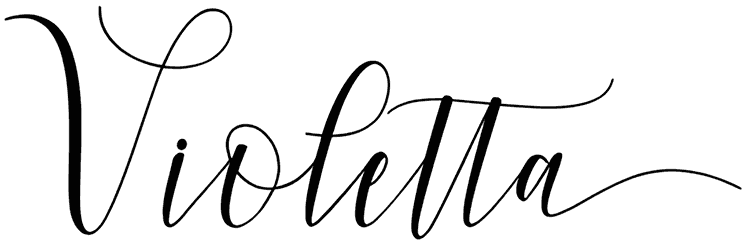
Violetta Script Font
Violetta is a script font with fluent and delicate letters that can make any writing look natural and professional. This spring font is a luxury choice for stylish postcards, wedding invitations, and print and digital designs. The smooth movement of the pen along with soft and uniform curves has made this font able to evoke the personal feelings of each viewer.